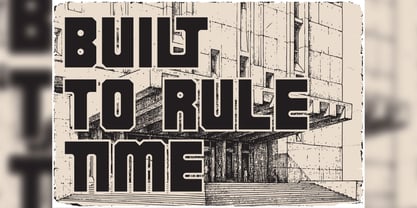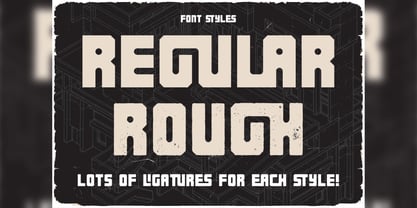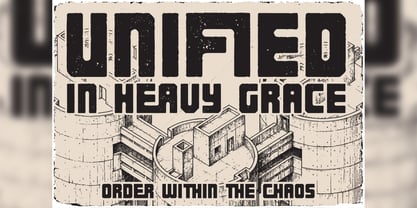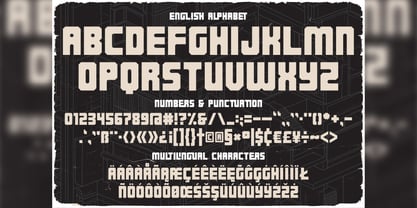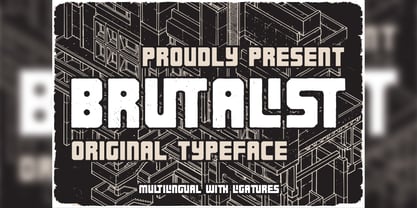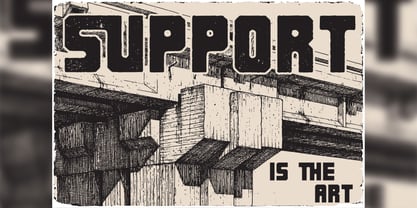
Brutalist
by Vozzy
The Brutalist Font Family was designed by Oleg Voznyy and published by Vozzy. Brutalist contains 2 styles and family package options. More about this family
I am pleased to present a new font called “Brutalist”. It is a unique font for headlines, accent inscriptions, and for attracting attention! It contains additional characters, punctuation marks, multilingual characters, and a large number of standard ligatures (make sure your software supports this open type feature). This font will look great on your beautiful designs!
Designers: Oleg Voznyy
Foundry: Vozzy